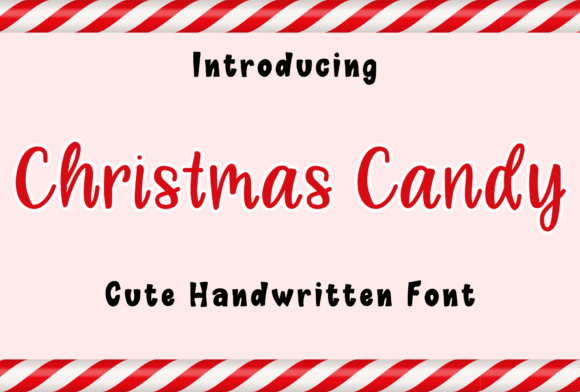
The Sweetest Design Companion This Holiday Season
Do you remember the magic of designing your own Christmas cards as a child? The excitement of choosing the perfect colors, decorations, and fonts to make it truly special? As a designer, you know that the right font can elevate any project and make it truly unforgettable.
Enter the ‘Christmas Candy’ font, a delightful typeface that embodies the spirit of the season. This charming font is designed to add a dash of playfulness and fun to any project, from Christmas cards and stickers to t-shirts and planners. Its lovable curves and playful strokes make it the perfect companion for designers looking to create something truly special. Whether you’re a seasoned pro or a creative enthusiast, the ‘Christmas Candy’ font is sure to be a valuable addition to your design toolkit.
Christmas Candy Font Key Features
- Unique Characteristics: The Christmas Candy Font features a playful, cursive design with intricate details, making it perfect for adding a festive touch to holiday-themed projects.
Christmas Candy Font Review
I recently had the chance to try out the Christmas Candy Font, and I must say it’s a sweet treat for designers looking for a festive font. ✨ The font’s playful and whimsical style is perfect for holiday projects, from greeting cards to party invitations. The font’s thick lines and rounded edges give it a fun and childlike feel that’s sure to put a smile on anyone’s face.
One of the things I love about Christmas Candy Font is its versatility. It can be used in a variety of contexts, from casual to formal, and still looks great. ✨ The font also comes in a range of sizes, from tiny to massive, making it easy to use in different design applications.
- ⚠️ Limited character set: The font’s character set is relatively small, which may limit its use in longer blocks of text.
- ⚠️ Not suitable for professional or formal use: While the font is perfect for casual projects, it may not be suitable for more formal or professional applications where a more traditional font is needed.
Overall, I think the Christmas Candy Font is a great addition to any designer’s toolkit. While it may have some limitations, its playful style and versatility make it a must-have for holiday projects. If you’re looking for a fun and festive font to add some personality to your designs, the Christmas Candy Font is definitely worth checking out.
Use the Christmas Candy Font to add a festive touch to your designs, such as:
- Christmas cards and invitations
- Holiday-themed social media graphics
- Party decorations and signs
For the best results, use the font in conjunction with bright, bold colors and festive graphics.
Alternatives to Christmas Candy Font
Christmas Candy Font is a popular font choice for designers, but there are many other options available. Here are a few alternatives:
Curlz
Curlz is a script font with a playful, whimsical feel. It’s perfect for designs that need a touch of elegance and sophistication. Curlz is a good choice when you want to add a sense of luxury and refinement to your design, but it’s not as cursive as Christmas Candy Font. It’s a bit more formal and can be used for a variety of design projects, from wedding invitations to packaging design.
Great Vibes is a modern, handwritten font with a relaxed, casual feel. It’s great for designs that need a friendly, approachable tone. Great Vibes is a good choice when you want to add a sense of warmth and personality to your design, but it’s not as sweet and childish as Christmas Candy Font. It’s a bit more versatile and can be used for a variety of design projects, from social media graphics to advertising campaigns.